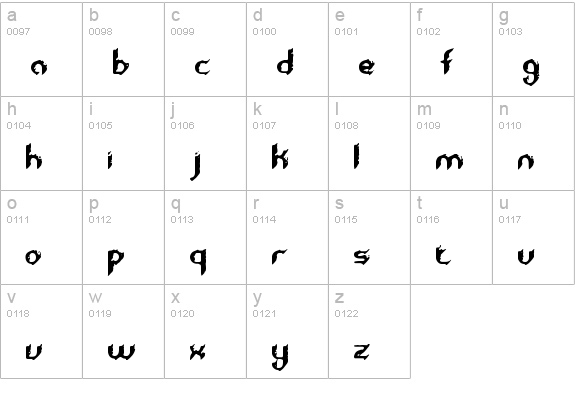
Rough Day BRK font is a unique display typeface that adds a touch of edginess and character to any design project. With its rough and uneven strokes, this font exudes a sense of boldness and individuality. The distressed appearance of Rough Day BRK gives off a cool and urban vibe, making it perfect for branding, posters, and other creative projects. What's even better is that Rough Day BRK font is available for free download at FontsMarket.com. This means you can easily add this eye-catching font to your collection without spending a dime. Don't miss out on the opportunity to enhance your designs with the distinctive charm of Rough Day BRK font - download it for free today!